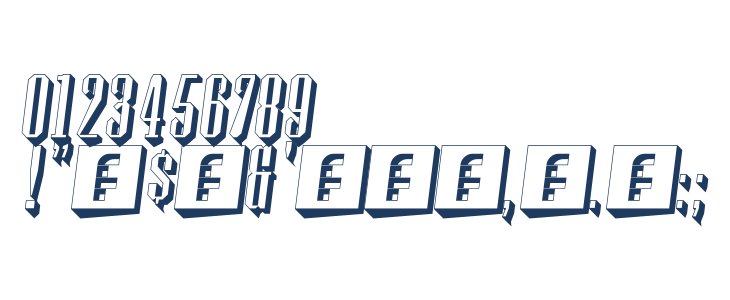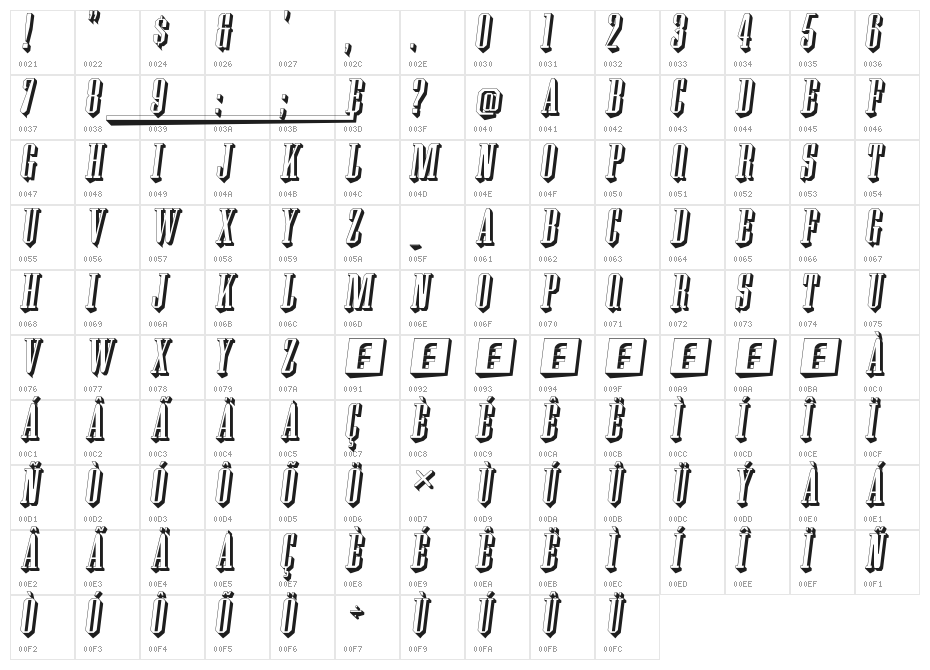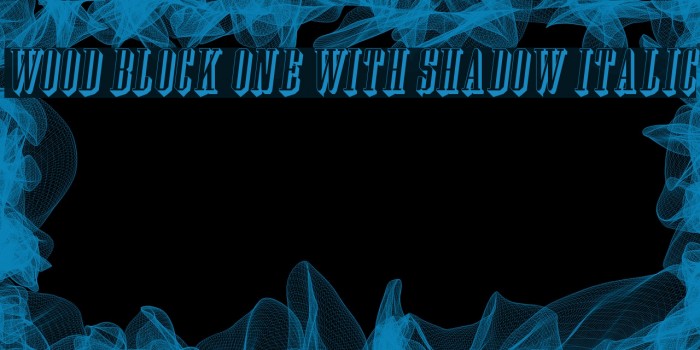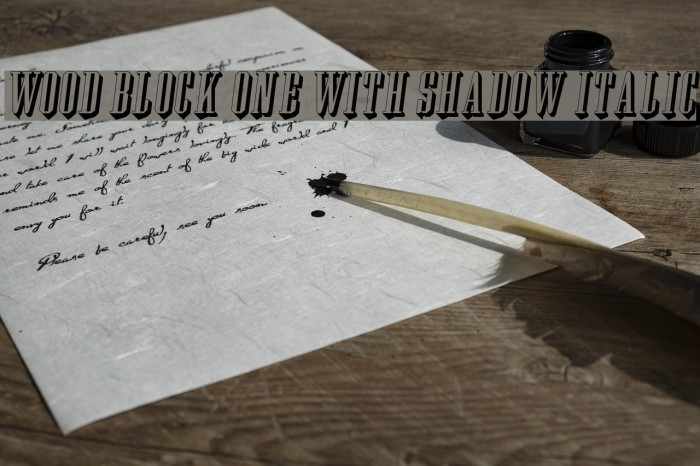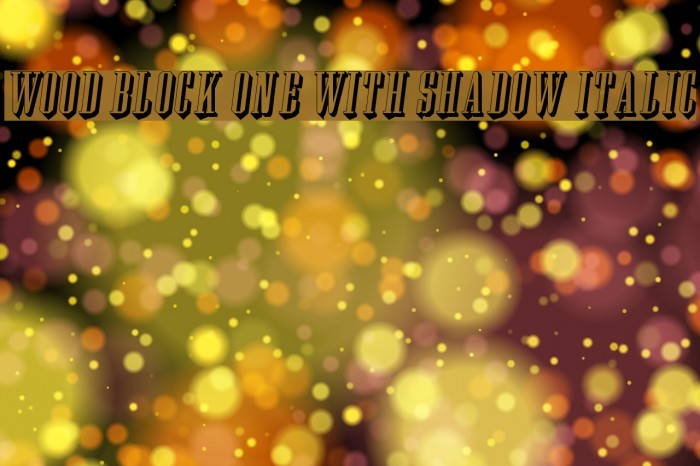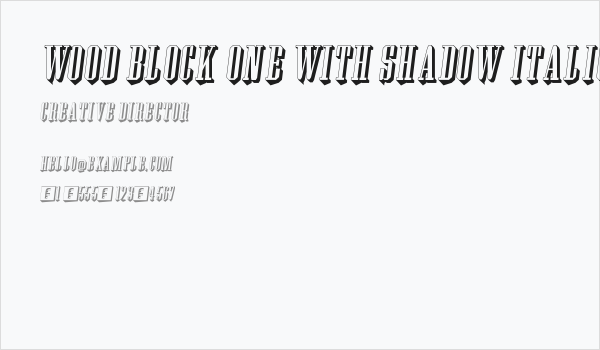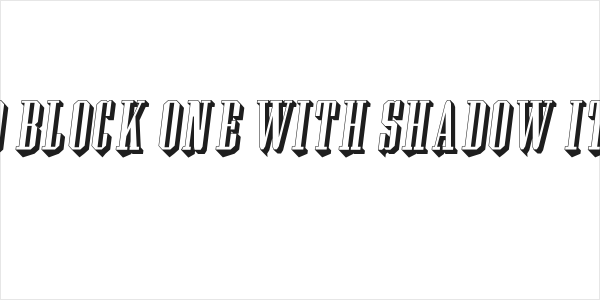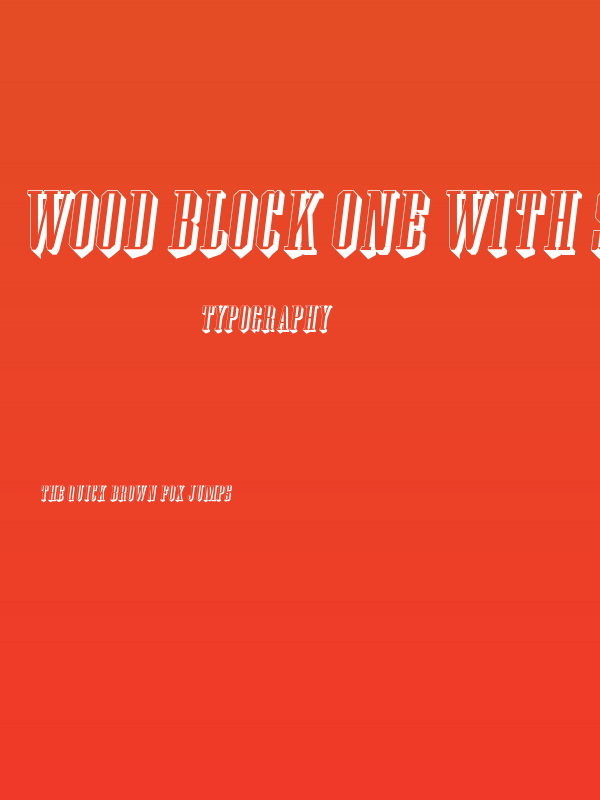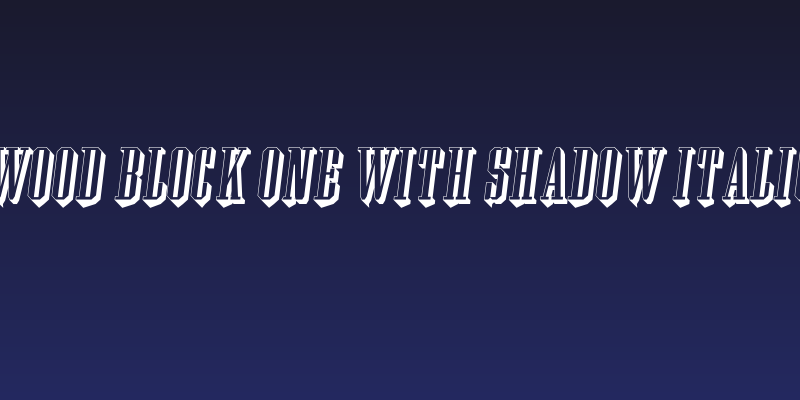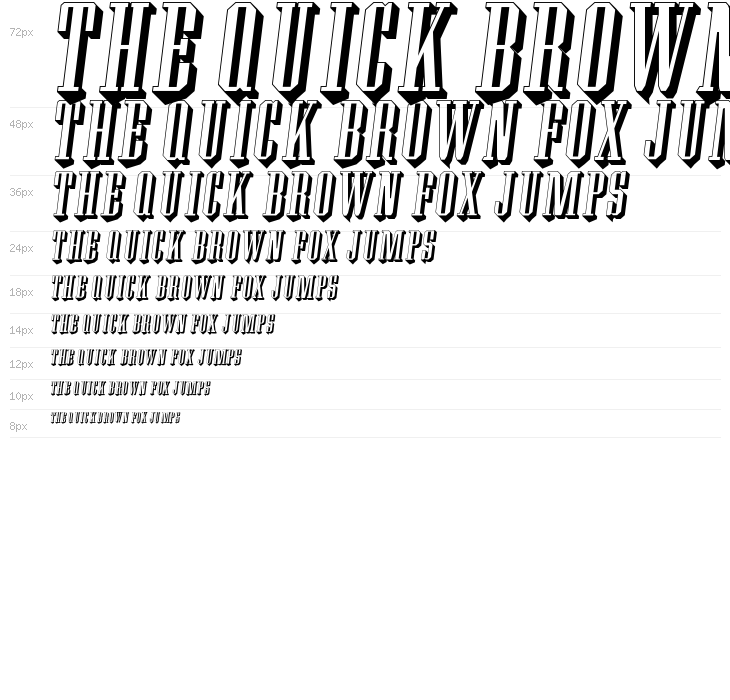
Wood Block One With Shadow Italic Font
Wood Block One With Shadow Italic Description
This font features a bold, three-dimensional design with a distinct shadow effect that gives it a strong, impactful presence. The characters are italicized, adding a dynamic and forward-leaning appearance. The font is characterized by its sharp edges and clean lines, which contribute to its modern and stylish look. The shadow effect enhances the depth and makes the text stand out, making it ideal for attention-grabbing headlines or titles. The uppercase and lowercase letters maintain a consistent style, while the numerals and special characters are designed to match the overall aesthetic. This font is perfect for projects that require a bold and eye-catching typeface.
| Proposed Projects | Ideal for posters, logos, book covers, and any design needing a strong visual impact. |